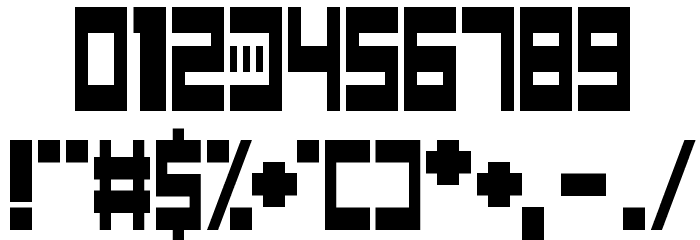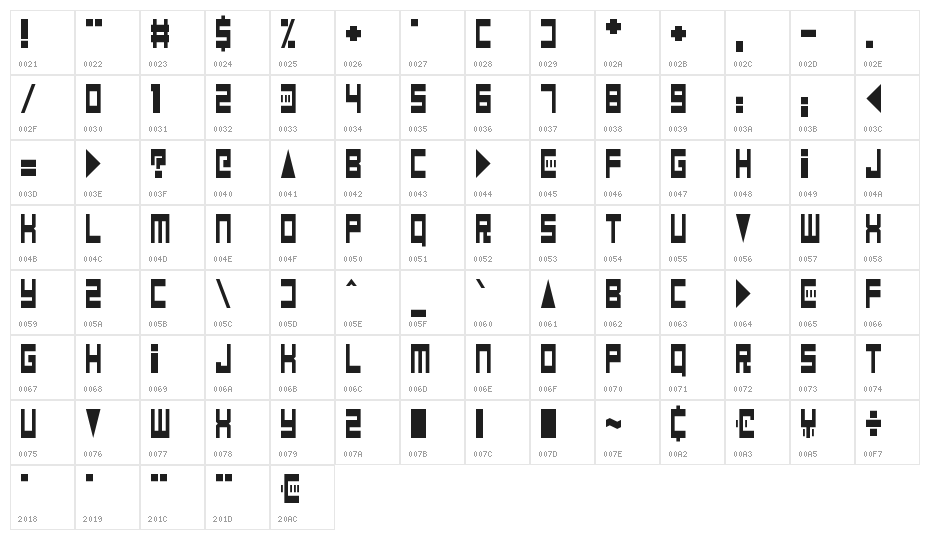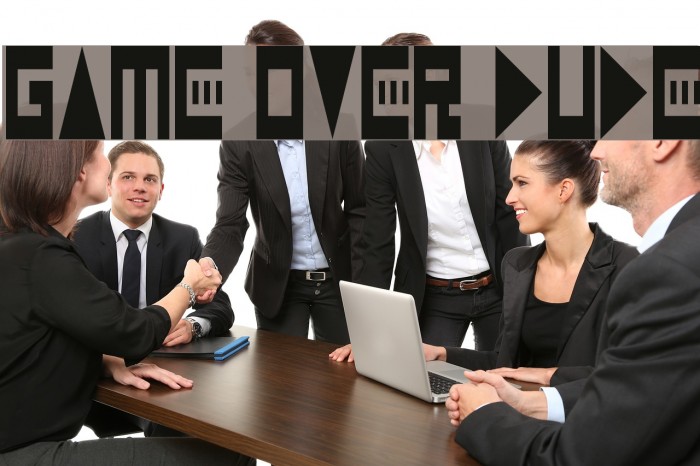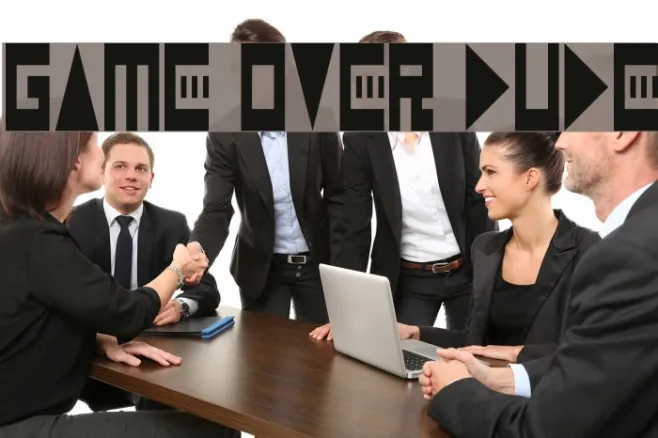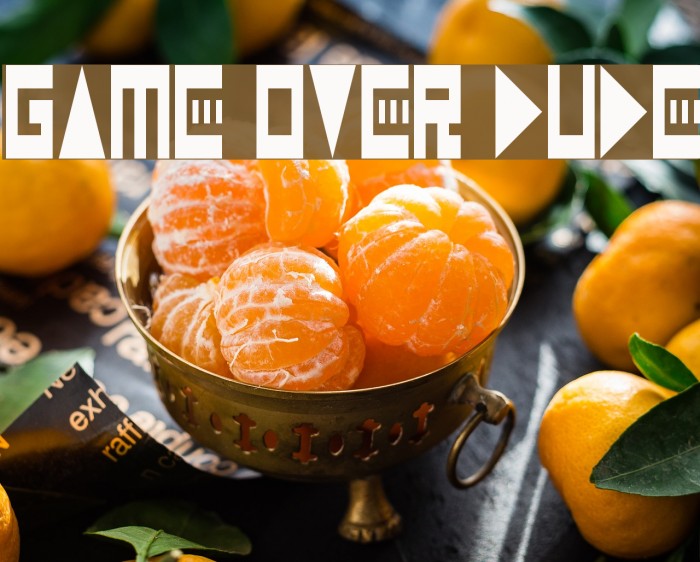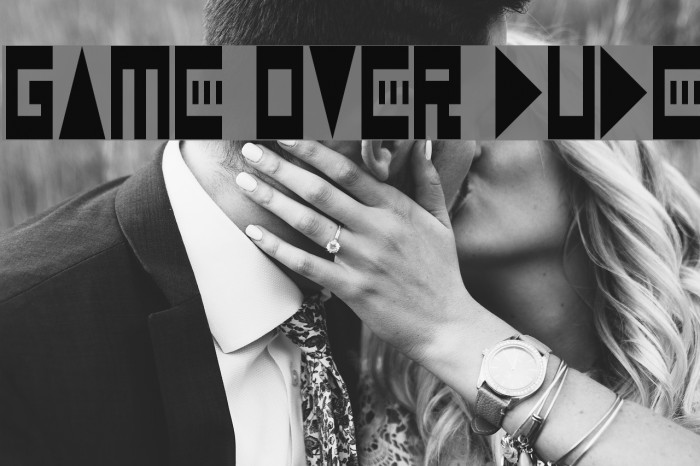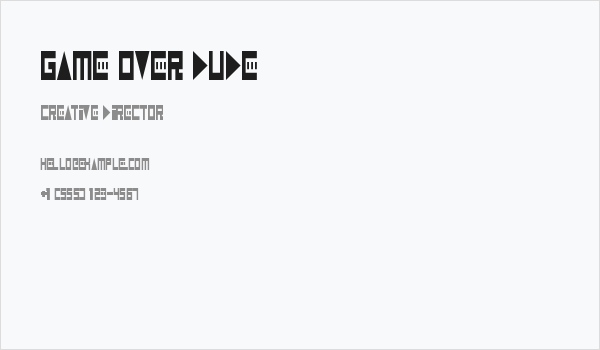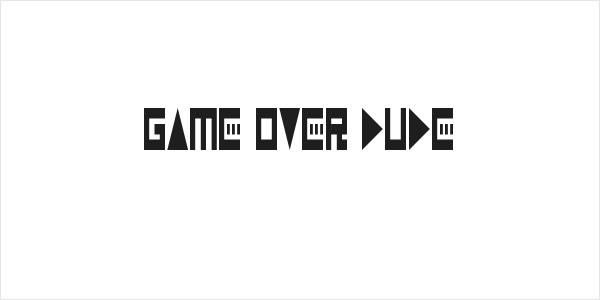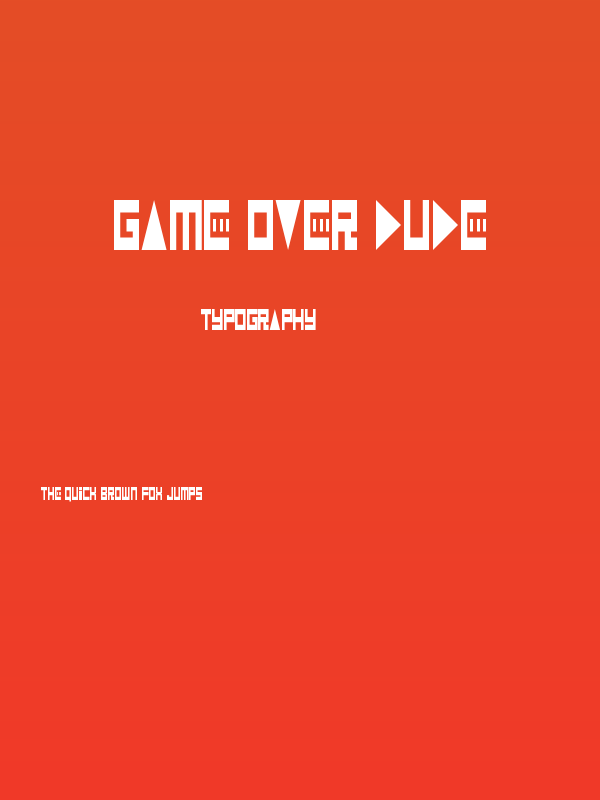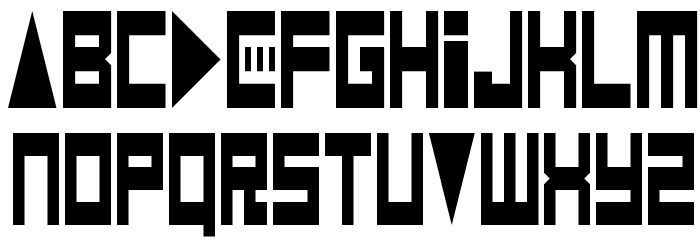
Game Over Dude Font
Game Over Dude Description
This font features a bold, geometric design with a distinctly futuristic and digital aesthetic. The characters are constructed with sharp angles and straight lines, creating a blocky and robust appearance. The uppercase letters are uniform in height and width, contributing to a cohesive and structured look. The numbers and special characters follow the same design principles, ensuring consistency across all glyphs. This font's style is reminiscent of retro video game graphics, making it ideal for projects that aim to evoke a sense of nostalgia or a tech-inspired theme.
| Overall Style | Futuristic, Retro |
| Proposed Projects | Ideal for video game titles, tech-themed posters, digital art projects, and retro-inspired designs. |